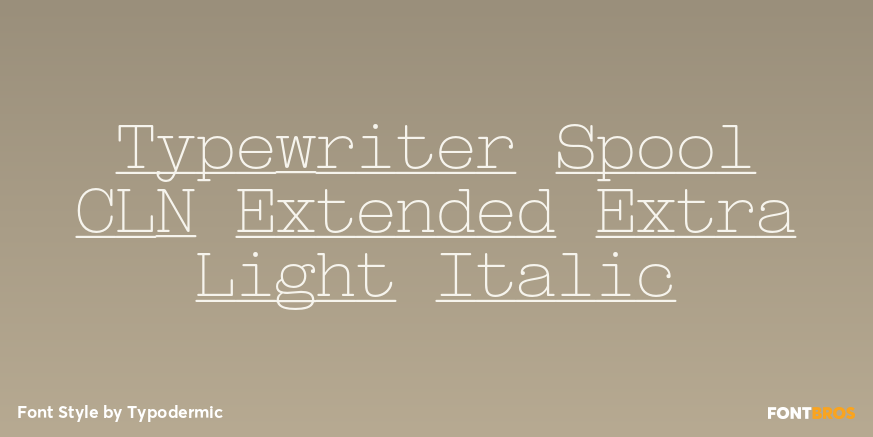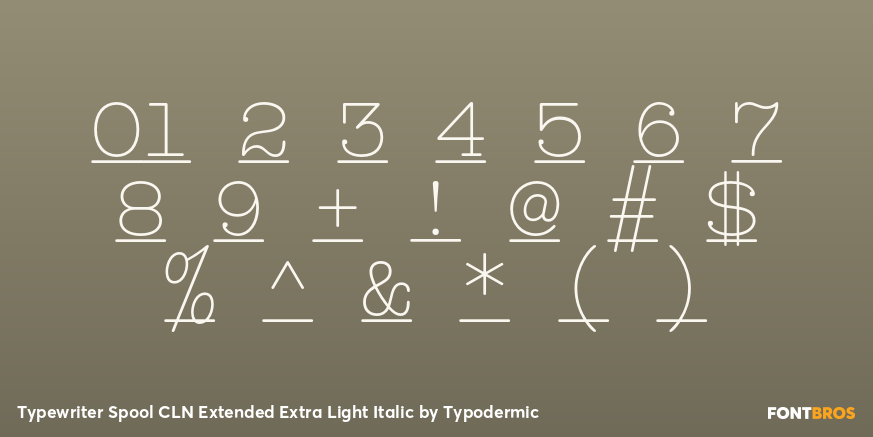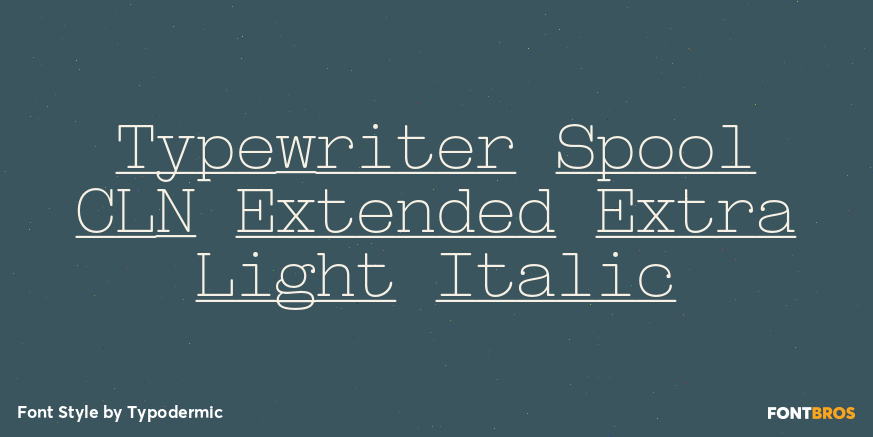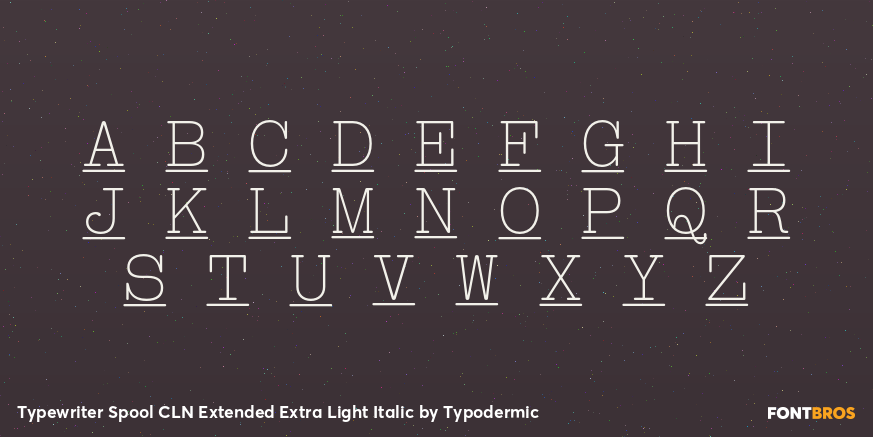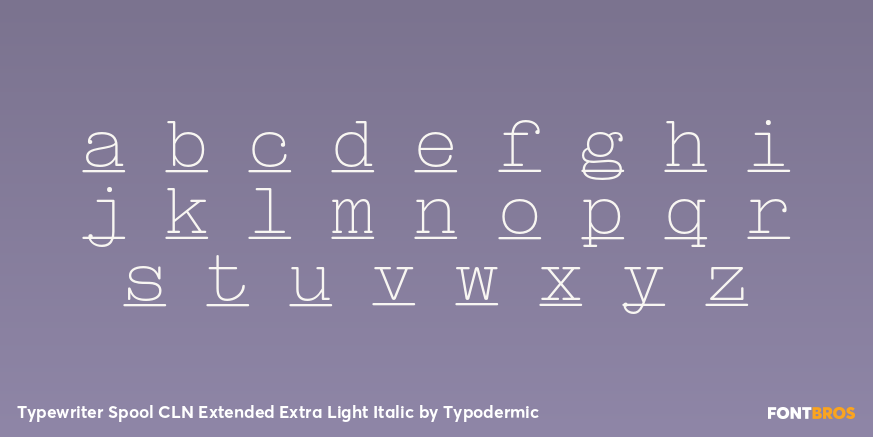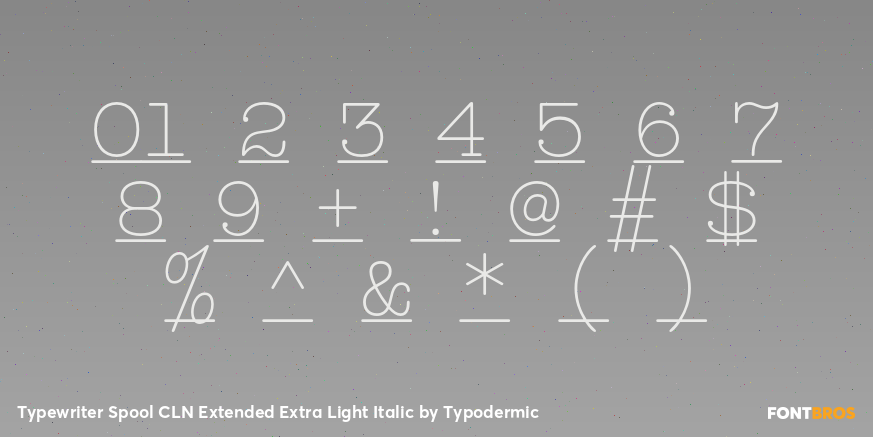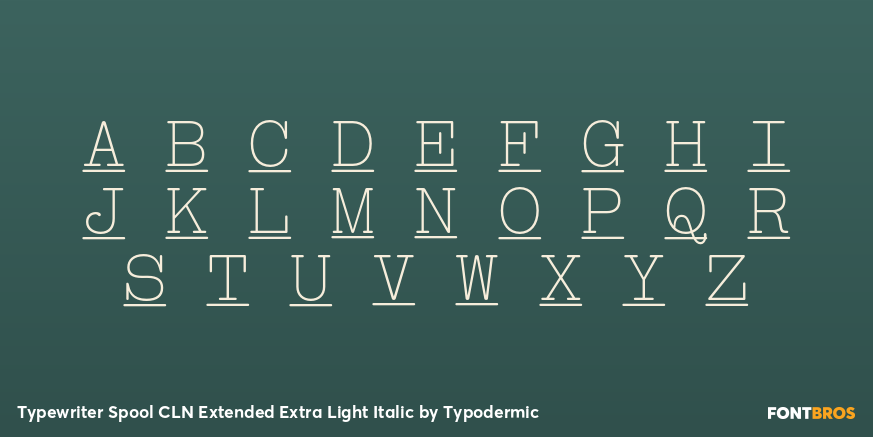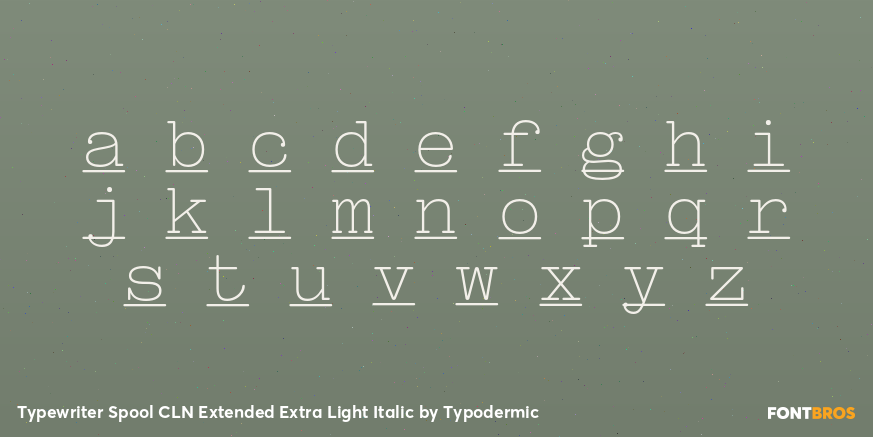
Typewriter Spool CLN Extended Extra Light Italic
Typewriter Spool CLN is the family’s cleanest and most controlled document condition. Crisp typewriter forms, even impressions, and a stable baseline suggest a well-maintained machine and a fresh original rather than a copied or damaged artifact. The concept remains the same across its weights, widths, and italics.
Use CLN for reconstructed correspondence, clean transcripts, archival quotations, corporate-history campaigns, museum labels, documentary titles, and production-design documents that need typewriter character without visible deterioration. It also provides the logical original when SFT, XRX, or RUF is used elsewhere to represent later stages in the same document’s life.